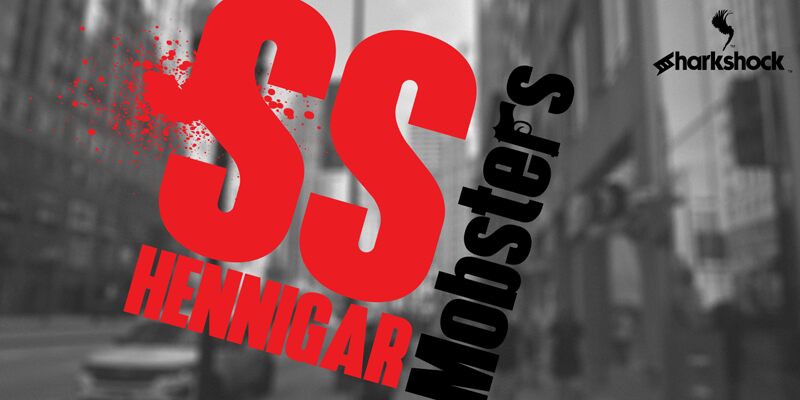
Looking for a bold, decorative font that will make your projects stand out from the crowd? Look no further than SS Mobsters Hennigar. This semi-expanded display font is perfect for creating eye-catching designs that demand attention, whether you're working on posters, logos, or anything in between. With its unique pistol-shaped letter R and bold letterforms, this font is ideal for projects with a bit of attitude or edge to them - think gritty crime dramas, vintage-inspired designs, or anything else that needs an extra dose of personality. So why wait? Give SS Mobsters Hennigar a try today and see what kind of impact it can make for your next project!
SS Mobsters Hennigar
Dennis Ludlow